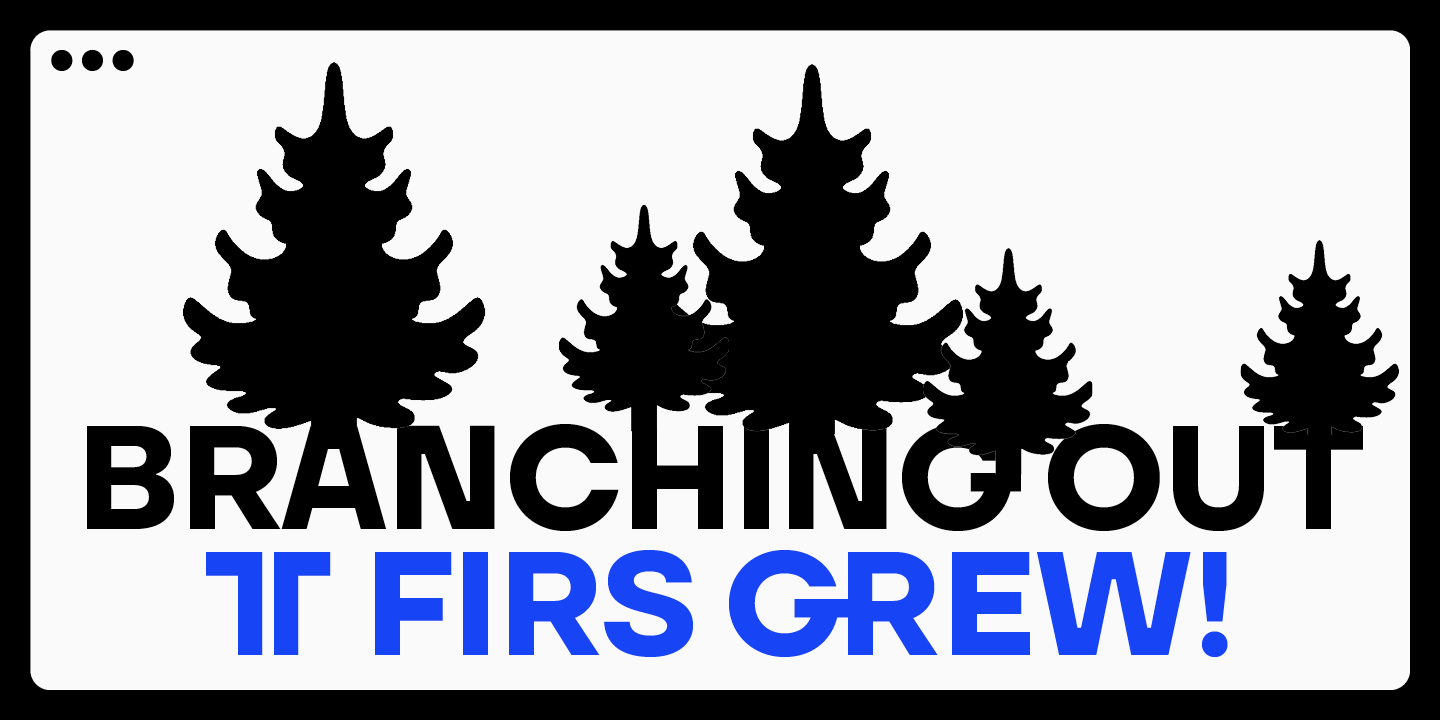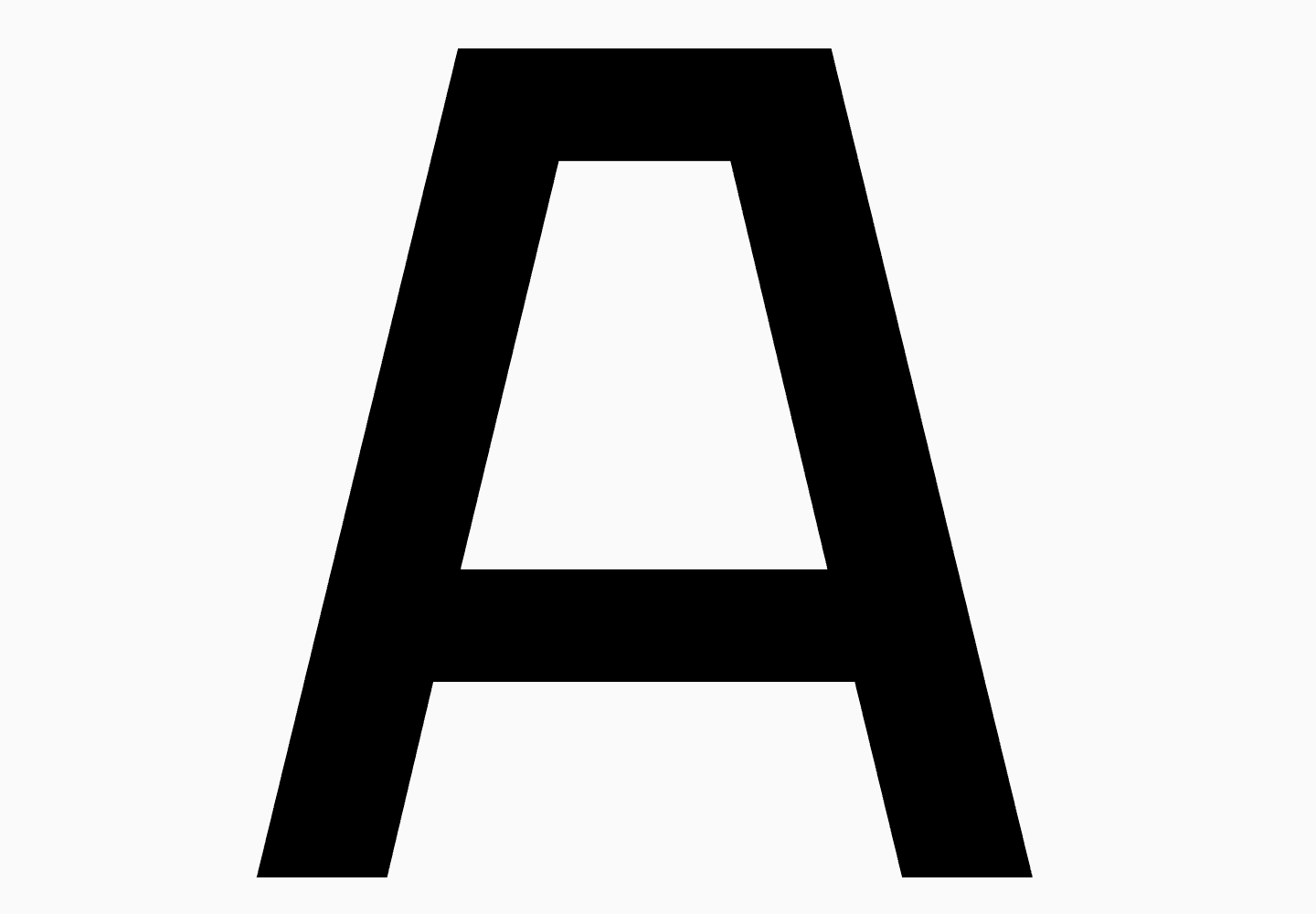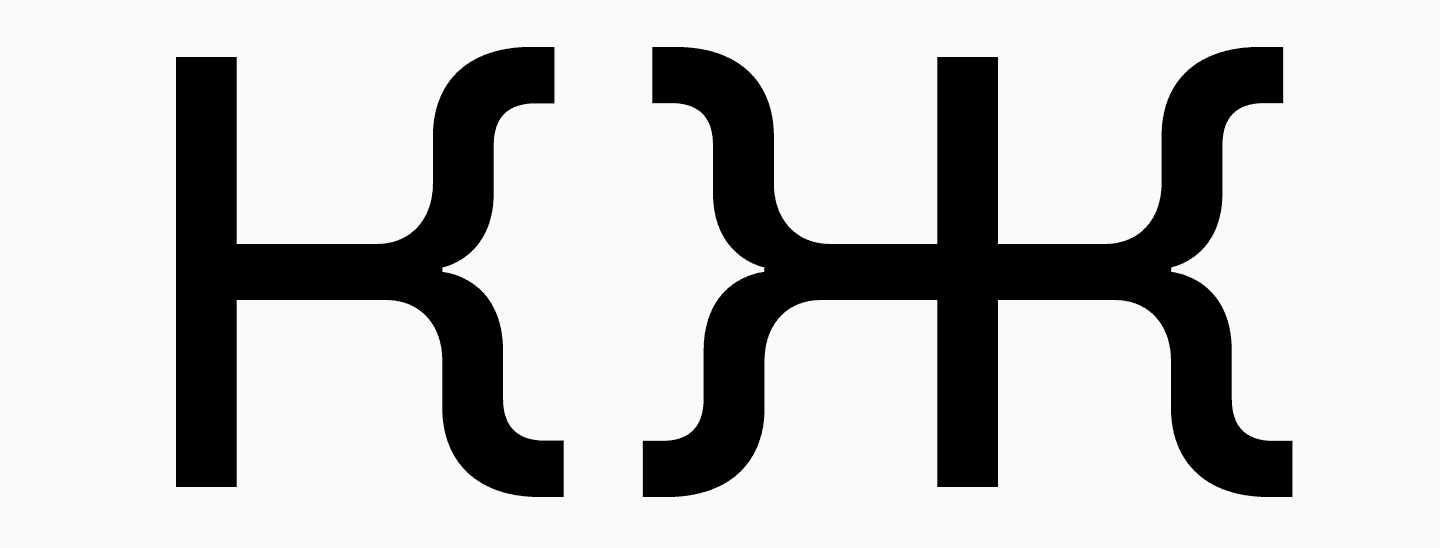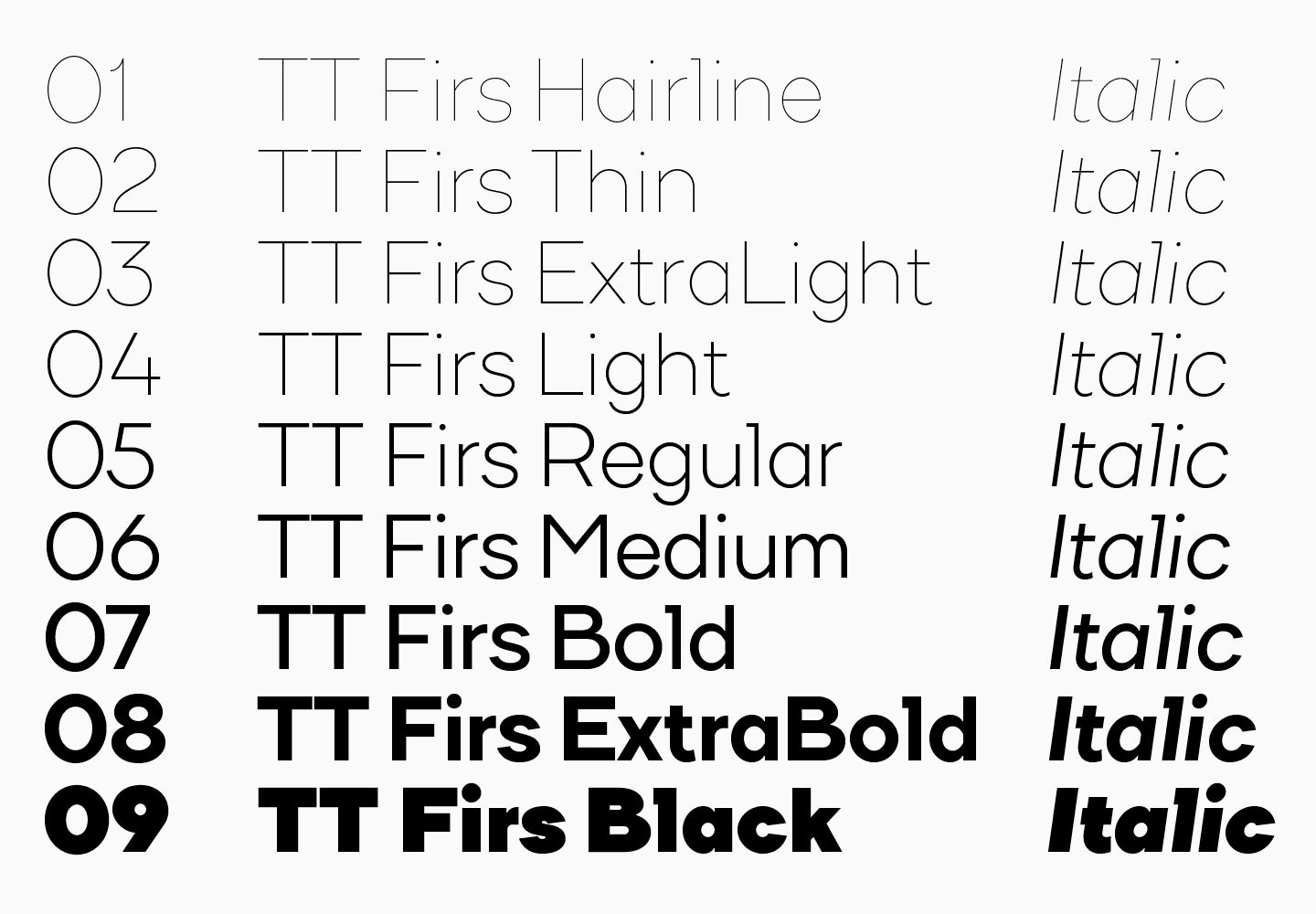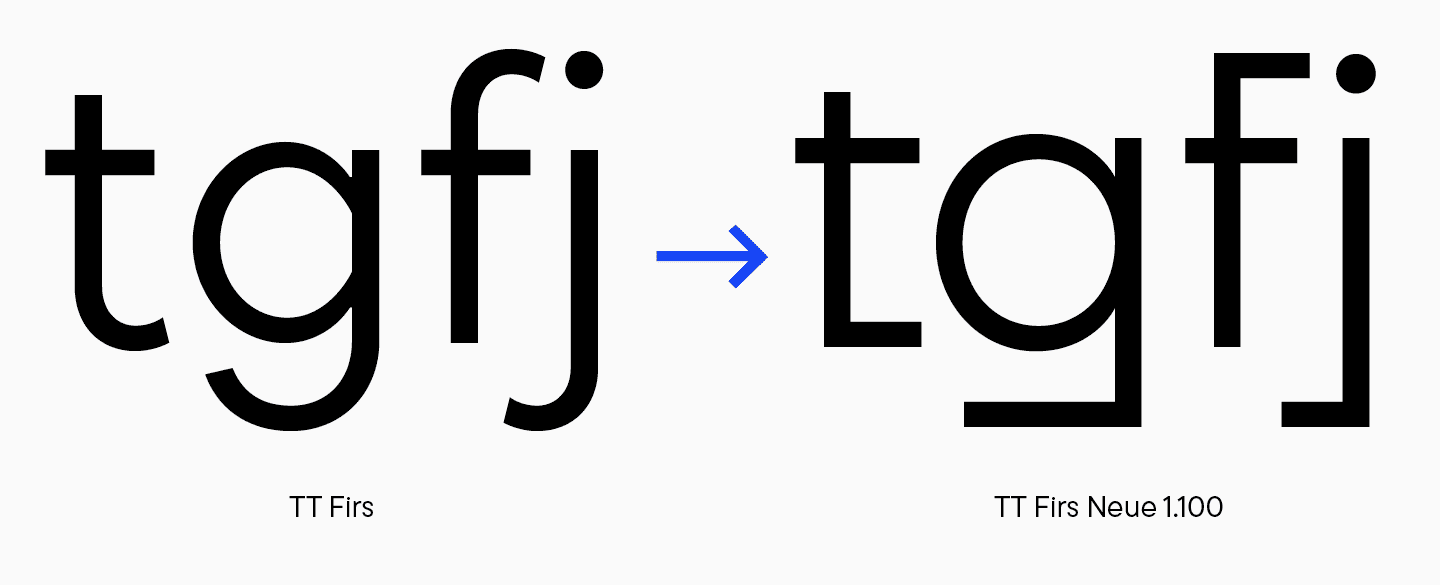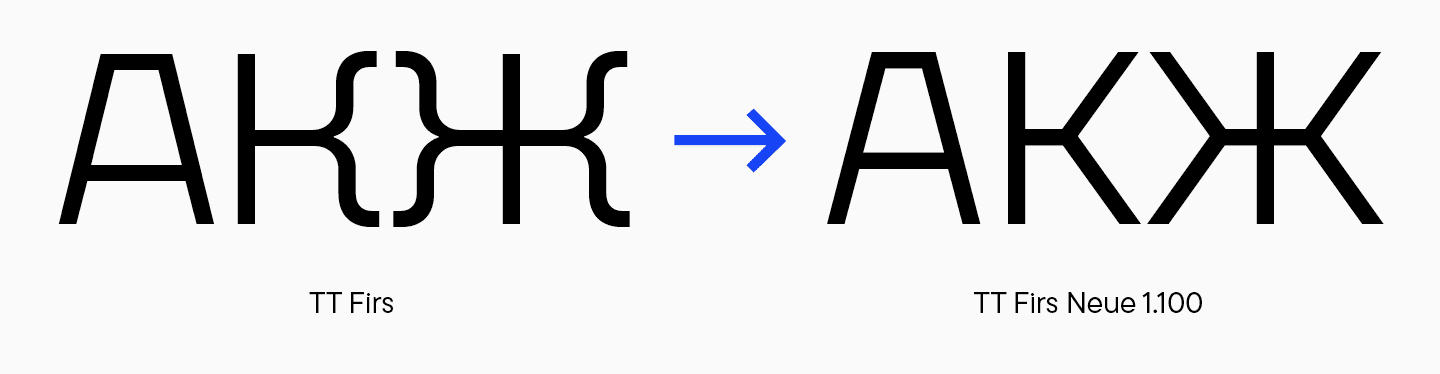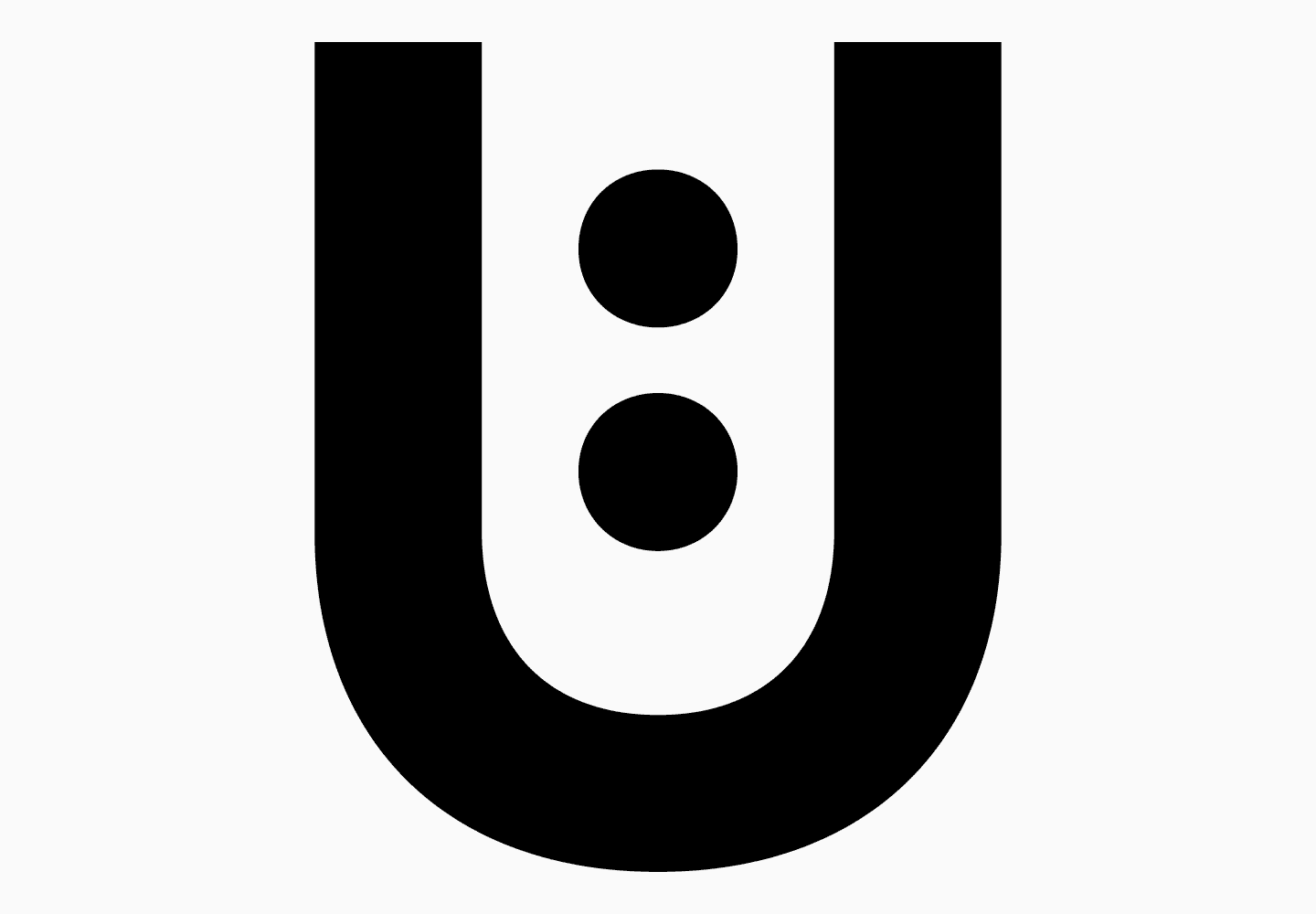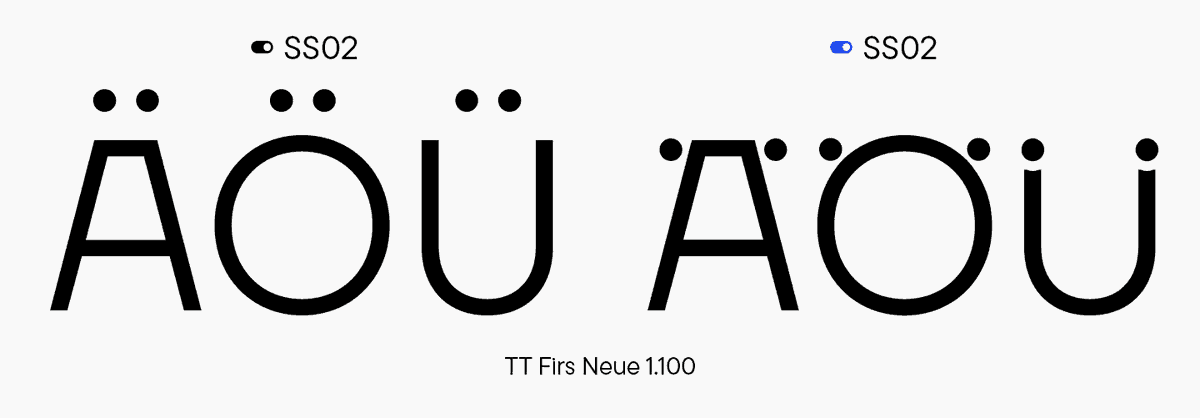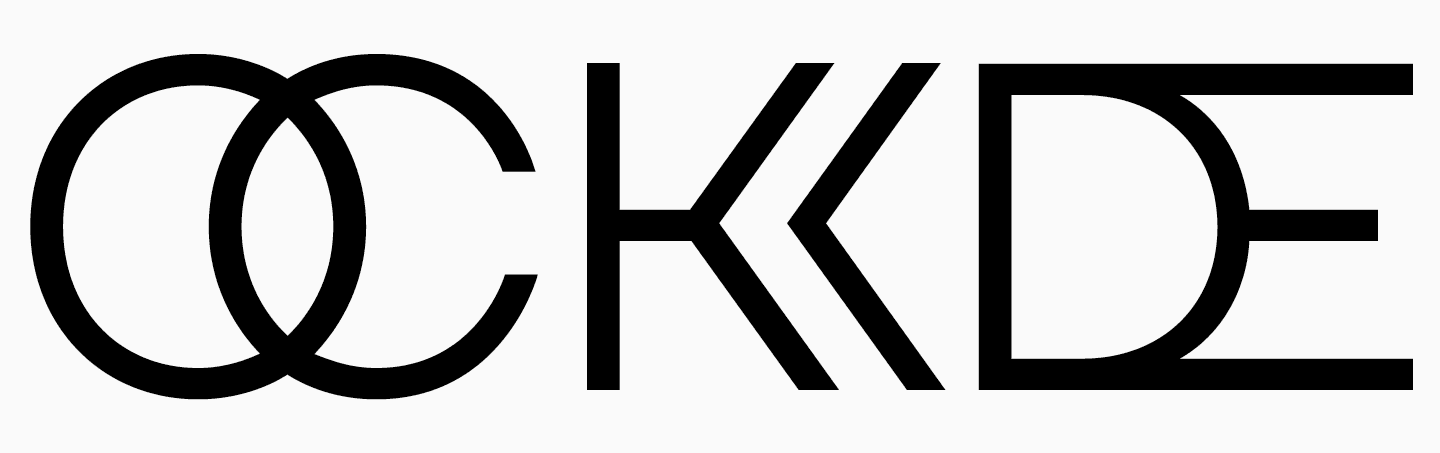
In 2023, we breathed new life into the beloved Scandinavian sans serif TT Firs Neue by dramatically refining and renewing the typeface to adjust to cutting-edge requirements. Quickly after, we launched the textual content font pair for this typeface — an elegant TT Firs Textual content.
This text is devoted to the way it all started, why we determined to replace TT Firs Neue, what we added and modified, and the way TT Firs Textual content was born.
How TT Firs planted roots
The story of TT Firs started again in 2014 when TypeType was simply beginning out. The concept for the font’s design was born in Helsinki: Ivan Gladkih, the studio’s co-founder, went on a household journey there for a weekend.
«We went to the Fazer café, which was initially only a café named after its founder. Later, they started producing the well-known chocolate below this model. This dessert store is situated in the town heart of Helsinki and was based in 1891. It appears to be like like a easy canteen, however they serve wonderful signature desserts, so the place is at all times crowded. The café blends seamlessly with the encompassing space. There, I noticed an outdated signal with the Fazer title. Once I regarded nearer, I thought it was one thing very eye-catching, distinctive, and fascinating. And that is how the thought of designing a Scandinavian-themed font got here to my thoughts. I was impressed by the letter ’A’ on the signal with a huge horizontal stroke at the highest and commenced sketching the long run Firs.»
Ivan Gladkih, CTO, co-founder of TypeType
«At that point, we drew every thing intuitively, with none analysis. We made a temper board with Scandinavian design references and Scandinavian-themed fonts. Whereas designing this sans serif, my major concern was what individuals would wish to use it for and the way it would mix with designs. Implementing the Cyrillic alphabet was a explicit problem as a result of there are not any comparable fonts that includes Cyrillic glyphs. If we used the horizontal factor of the letter ’A’ in the Cyrillic letters ’Д’ and ’Л,’ which is a reference to the Nineteen Sixties of the Soviet interval, it could be logical to design different pseudo-soviet letters—and that’s how branchy ’К’ and ’Ж’ had been designed. Total, I relied totally on my private sense of issues.»
Ivan Gladkih, CTO, co-founder of TypeType
So, in 2015, the primary model of our Scandinavian sans serif got here to life. The typeface consisted of 9 roman and 9 italic font kinds, and the character set was minimal. The daring font model was reasonably stable however had nuances associated to the distribution of distinction and weights. We will let you know extra about that later. Nonetheless, the font turned out to be genuinely distinctive and positively infused with a Scandinavian ambiance.
«We had a custom at that point to title all fonts so that their names resulted in ‘s.’ Whereas I was desirous about how one can title a Scandinavian sans serif, I realized that certainly one of the distinctive options of Scandinavia is fir bushes. That is how the font adopted the title TT Firs, which caught on and nonetheless exists in the third font’s version.»
Ivan Gladkih, CTO, co-founder of TypeType
After the discharge of TT Firs, it lived a lifetime of its personal — we watched it from apart and noticed many examples of individuals utilizing it in their designs. Though it didn’t characteristic hinting or any OpenType options, it was distinctive, charming, and beloved by customers. That’s why we thought-about updating and enhancing the typeface.
How TT Firs «branched out» and grew to turn into TT Firs Neue
We really beloved TT Firs. Nonetheless, the extra fonts we launched, the higher we understood that this Scandinavian sans serif is not maintaining with the standard of our font library. So, in 2017, we determined that it was time to get began on its revamp.
First adjustments
At that point, we collaborated with Filipp Nurullin, a visitor typeface artwork director at TypeType. He was the one to do the primary revision of TT Firs and conduct the primary analysis.
Filipp tried to reimagine the font with inventive imaginative and prescient to make it extra fashionable and efficient for numerous initiatives. So, sharp angular cuts appeared in the font, for instance, in the letter «g,» which has a rounded half mixed with a sharp angle. There’s additionally a squared angle in the letter «f.» On one hand, this factor doesn’t appear logical. On the opposite, it presents a distinctive technique to spotlight lowercase characters that beforehand regarded extra impartial.
Additionally, Filipp reworked the legs of «A» and arms of «Ok» and «Ж» to make them look more durable, extra intense and provides them a European really feel. Branchy letters from the earlier model remained to function alternates. This fashion, we received a fundamental set of glyphs utilized in TT Firs by default and represented this font and an alternate set (spoiler: we’ll hold following this logic with alternates whereas engaged on future iterations).
Throughout the work, it turned clear that certainly one of the distinctive options of Scandinavian typography is diacritical marks positioned inside letters. For example, a attribute letter «U,» the place the umlaut is typically positioned inside, like berries in a shot glass.
So, diacritical marks are both built-in into letters, pressed up towards them, or positioned on their aspect. We made this peculiarity certainly one of our font’s key options and emphasised its Scandinavian spirit by designing a set with such diacritics (a comparable however enhanced set remained in the newest model of TT Firs Neue).
This replace additionally contained quite a few show ligatures. They had been surprising, distinctive, and added expressiveness and visible mass to the font.
«I suppose it’s actually cool that simply by utilizing these ligatures, designers can boost the visible model of a letter, phrase, textual content, or emblem with out implementing any extra graphic parts. It might sound shocking, however I’ve by no means seen such ligatures in use. Though I would love to, as a result of they’re really superior and „survived“ till the present font model (solely in a modified kind — Ed. observe).»
Ivan Gladkih, CTO, co-founder of TypeType
That is how the reimagined model of TT Firs got here to be. We launched it in 2018 below the title TT Firs Neue (1.100). At that point, the typeface included greater than 900 glyphs (in distinction to the primary model, which had about 400 glyphs). TT Firs Neue, model 2.000, will characteristic greater than 1700 glyphs—however let’s tackle every thing in flip.
Apparently, TT Firs Neue’s notion has been altering a lot. The extra initiatives used it, the extra impartial it appeared as a result of it had turn into ubiquitous: we noticed it in YouTube movies, branding, logos, and extra.
«The font has turn into visually impartial, nonetheless odd it could seem. All its expressive and tremendous recognizable types, resembling triangular „Д“ and „Л,“ and „t,“ „f,“ „g,“ and „j“ with squared angles, turned strange as if they had been at all times presupposed to appear to be this. This got here as a shock to me. As the saying goes, font works in mysterious methods. At first, our typeface appeared one thing extraordinary, and after a whereas, you suppose it’s only a font, and there’s nothing particular about its look.»
Ivan Gladkih, CTO, co-founder of TypeType
A new starting: Designing TT Firs Neue 2.000
As time went on, the studio advanced and mastered new instruments. Our fonts grew along with us. After transitioning to Glyphs, we received our palms on variation axes. This device helps us create variable fonts as effectively as keep logic inside a typeface.
That’s why, in 2022, we thought up a new makeover for TT Firs Neue, which had been beloved by each us and our customers. The font was wonderful already, however we determined that we needed to make it even higher! We meticulously revised the tiniest particulars and polished them to perfection. As a outcome, we didn’t simply replace the font—we virtually rebuilt the typeface from scratch.
Half 1: In search of imperfections
To start with, our Lead Designer, Antonina Zhulkova, revised the present TT Firs Neue and steered potential enhancements. Let’s go via them collectively.
Notice that we will typically seek advice from the phrase «bizarre» (or its synonyms) all through the textual content. What do we imply when speaking concerning the weirdness of a font or particular person characters? We see it as a little flag: «One thing stands out from the general image.» First, we shortly «scan» the font, getting a sense of it. TT Firs Neue is harsh, Nordic, static, engaging, recognizable. It’s straightforward to bear in mind primarily due to the horizontal joints between diagonals. The letter «A» Ivan talked about earlier may function a emblem for this font. One other element forming the font’s model is squared terminals in some characters. These are the integral components of the typeface’s character. The remainder of the expressive parts are evaluated with a essential eye in phrases of their goal. We mark issues as «bizarre» or «surprising» and analyze whether or not this graphic contradicts the core idea of the font or emphasizes it. If one thing enhances the font’s character, enhancing and supporting it, we may hold it. If a element has no affect on the font’s character or goes towards it, this element doesn’t belong right here.
Visible compensators
It’s important to perceive that the primary model of TT Firs was designed in FontLab 5, and the earlier replace was created in Glyphs. So, we needed to work with the file that was moved from FontLab 5 to Glyphs in a barely incorrect format.
This posed some challenges. For instance, the earlier font model contained ink traps in the daring kinds. This added an further aptitude to the font and addressed the difficulty of glyphs clumping in small level sizes. After shifting to Glyphs, lighter font kinds additionally acquired ink traps, however they solely served as workarounds. Throughout the revision, we got here to two conclusions. On the one hand, these compensations had a practical goal: to make variability work. On the opposite hand, they made daring characters look extra expressive, and the general graphics appeared inconsistent.
For example, the letter «N» in the Skinny font model often appears to be like calm, and in the Black font model, the compensators seem to remodel its character barely. Nonetheless, if in «N,» they don’t seem to be excessively noticeable and have a technical perform of not letting daring stems clamp with diagonals, in the letter «M,» they turn into thinner and rather more aggressive. And in the ampersand, they modify their shapes once more.
Thus, ink traps weren’t featured in all font kinds and regarded completely different even inside one font model, creating visible noise.
Completely different overhangs in rounded characters
The logic of rounded characters was flawed. For instance, the uppercase «O» in the Skinny font model regarded round however barely stretched vertically. In the common font model, it reached most roundness and expanded horizontally in Daring and Black. Lowercase characters made this impact much more outstanding.
Completely different terminal character
«Apparently, this was certainly one of the options that helped me distinguish the outdated TT Firs Neue model from the brand new one if I noticed the font out on the road someplace. These outdated terminals entice consideration; I referred to as them ’scorpion’s tails.’»
Marina Khodak, TypeType Lead Designer
For example, the letter «a» had a clean and symmetrical terminal, the place the left bracket half regarded virtually the identical as the proper one. Sure, it was a little extra sloped on the left, however total it regarded comparable. The letter «з» has a crammed oval on the proper, whereas the left terminal flattens out, and the angle sharpens dramatically—just like the scorpion’s tail earlier than a strike.
That is as noticeable in the uppercase «S» and «З» as in the rounded characters («C,» «G»). The higher high a part of the letters appears to lose its weight and roundness.
In normal, each choices have the proper to be, however we wanted to perceive which one was higher for our font: rounded, full terminals or sharp «tails.»
«On condition that the font appears to be like fairly robust and critical, it was logical to make terminals resemble those in the letter ’a’: symmetrical however with out the lack of weight.»
Marina Khodak, TypeType Lead Designer
One other drawback was that, in addition to the personalities, terminals had various widths. That is clearly seen in the letters «t,» «j,» «l,» and «f.» For example, the terminal of «j» is considerably wider than that of the letter «l,» and this appears to be like odd, particularly considering that the terminal’s form is fairly expressive and crowd pleasing.
Inconsistent selection of types
In older variations of our fonts, there may be a noticeable pattern to make the black font model extra uncommon. Now, we don’t do that anymore. First, letterforms needs to be constant in all font kinds to make variability work correctly (the variety of factors in font kinds have to be equal). Second, we contemplate such design selections a break in the font household’s logic. That’s why some types of the outdated TT Firs didn’t cross our new self-censorship.
For instance, the quantity 4 in the Black model had a sloped stem angle, permitting for extra unfavorable area inside. At that second, we most likely thought it was essentially the most optimum resolution. Nevertheless it wasn’t the very best. We wanted to discover one other one which wouldn’t make us break the glyph’s kind.
Interletter areas (aproshes)
Spacing required refinement.
Triangular characters
Inconsistent kind logic, various grasp widths, not sufficient slant in «A,» «Л,» and «Д.»
That is a essential nuance as a result of these junctions, horizontal bars, are a style-forming factor of the font. In TT Firs, they had been essentially the most strongly expressed in comparability to the opposite typefaces in our assortment.
For example, this junction is very noticeable in «A» and «V.» Notice that that it appears to be like the identical in these two letters and the letter «X.» Nonetheless, in «Y» and «W» it’s not featured, making them simply strange letters with none expressive parts. Thus, the logic of glyph design is damaged throughout the Black font model.
The identical challenge might be seen in the lowercase triangular characters (Cyrillic and Latin): «v,» «w,» «x,» «y,» «л,» «д,» «м,» and «и.»
Let’s now take a look at the entire household. Other than ink traps in the daring masters, there may be a lack of readability in junctions. The letter «M» in the Daring font model has a horizontal at the underside however not at the tops. In the Skinny font model, it’s additionally solely featured at the underside. Furthermore, the width of this element varies in completely different font kinds: in Skinny, it’s a lot wider than in Daring or Black.
The letter «N» doesn’t embody such parts at all. In addition to, ink traps are current in the daring grasp however not in the skinny one.
Take a take a look at the letter «W.» Like «M,» it ought to have featured a junction in the higher a part of the diagonal intersection and sharp angles in the underside half. Nonetheless, for «W» in the Skinny model, all of the intersections go via this junction and will not be included in the daring grasp, and ink traps will not be featured both.
It appears to be like just like the logic was flawed each inside particular person font kinds and between completely different font kinds.
«For the replace, we may contemplate the next approaches: shift in direction of expressiveness or flip away from it. For instance, we may add ink traps in all places. Throughout the group, we determined that, in that case, this graphic selection wouldn’t refresh the undertaking in any means, and opting out of it would make the font look extra fashionable. In addition to, there may be no level in including ink traps to mild font kinds as they don’t seem to be clearly seen there. One other challenge was whether or not to add junctions in all places or do away with all of them. If we had not built-in them, we would have had a extra impartial design. Such a resolution didn’t go well with TT Firs Neue however was carried out into TT Firs Textual content (we will inform about it later — Ed. observe)»
Marina Khodak, TypeType Lead Designer
So, we determined to hold horizontal parts. Nonetheless, there was a query of how they need to look: like in the «M» or in the «W.» These letters have essentially the most noticeable distinction between the development of junctions.
In her interview, Antonina steered making a extra standardized model: add junctions like in the letter «W» in all places and make them medium in width. She made a sketch that impressed the additional improvement of the font household.
Spherical characters
«Once I started engaged on the font, I fully redesigned spherical characters. the outdated model of the font, at all of the font kinds featured there, we can see that the proportions of rectangular characters fluctuate. For example, in the Skinny font model, the letter „H“ is very slim, and the correlation between „H“ and „O“ in this font model is not the identical as in Common, Daring, and Black. Primarily, the letter „H“ in Skinny was not simply extraordinarily slim; it additionally appeared a lot narrower than the letter „O.“ The „O“ regarded extra spherical, and the „H“ was very elongated vertically. At the identical time, the Daring font model didn’t characteristic this distinction. So, it regarded as if „H“ expanded with rising weight, altering its proportions.»
Marina Khodak, TypeType Lead Designer
The identical factor occurred to lowercase characters. By evaluating the letter «o» and the single-storey «a,» we can see that these letters have very comparable proportions in the Skinny font model: the «a» is a little narrower than the «o» however nonetheless appears to be like extra rounded. Nonetheless, in the Common font model, the «a» turns into extra vertical, whereas the «o» expands horizontally. With rising weight, this tendency, very similar to in uppercase letters, turns into extra pronounced. The letter «a» and comparable characters turn into narrower, buying a vertically oriented kind, and the letter «o,» in distinction, turns into wider.
In addition to, in the Skinny font model, the left sides of the «o» and the single-storey «a» are just like one another, however as the font weight will increase, the similarity disappears. Additionally, the junctions of the spherical characters appear lighter in the Daring font model.
Marina finally modified the letter proportions to clear up this drawback. We’ll present and let you know extra concerning the final result under.
Characters with bowls
The following facet on the evaluate record was the damaged logic of the correlation and distribution of the oval types between font kinds. Furthermore, the bowl heights appear too giant, particularly in the Skinny model. The letter «Я» is smaller and narrower than the letters «Р,» «В,» and «Ь.»
«For instance, by evaluating the letter „P“ in the Skinny and Common masters, we can see the distinction in correlation. In Common, the waist is increased than in Skinny, which makes the letter resemble a small flag on a stick. As if the oval is not an important a part of the letter however merely one other extra factor.»
Marina Khodak, TypeType Lead Designer
S, З, J
The character of these letters considerably stands out from the opposite glyphs in the set, which is particularly noticeable in lowercase letters.
The higher left a part of the bowl in «З» is a little quick. «S» options extreme fluidity, «J» has an overly vibrant terminal—the one letter in the font the place the terminal reduce is angled. In all different characters, terminals are reduce horizontally. TT Firs is a static, harsh sans serif, and if such fonts have a dynamic look, this needs to be justified.
Ligatures
There have been additionally issues concerning the set of ligatures. For example, the lowercase set consists of «fi» and doesn’t embody «ffi.» Sure uppercase ligatures are lacking their reverse variations — there may be «AV» however no «VA,» and «TA» however no «AT.» That is not a mistake however raises questions on what’s actually taking place there.
The logic between masters in the ligatures is additionally flawed. In the «AR» letter mixture, «A» is narrower than «R» in the Skinny font model, and in the Black font model, this proportion shifts, and «A» turns into considerably wider, taking over virtually as a lot area as «R.» The identical goes for «RJ.»
«LA» contains a bizarre connection, which is inconsistent in completely different masters.
One other odd design selection is the widespread horizontal stroke in «EA.» It is fascinating on its personal however isn’t fully thought via, so in the Black font model, every thing clumps collectively, and the ligature appears to be like extra just like the Cyrillic «БА» as a result of the underside a part of «E» types an oval form.
«TE» additionally appears to be like unusual and resembles a hair comb. When a letter turns into harking back to one thing else, it turns into an icon or an illustration. It appears the graphics might have been overemphasized throughout its design.
Lastly, right here is the «АТ» ligature, which is sadly fully illegible due to its overcomplicated kind.
The Common font model was too daring
After the primary TT Firs replace, the Common font model regarded too daring due to the font’s transition from FontLab 5 into Glyphs. We make the conclusion concerning the extreme weight in response to the same distribution of weights in font kinds of quite a few typefaces. Customers have expectations about how (in concept) a Common or Daring font model ought to look, and font designers have the information of values.
Antonina Zhulkova supplied the next answer: to take all of the values from the outdated TT Firs Neue and make the Common font model a little lighter. At that second, this answer was optimistic as a result of we thought it could be a fast replace the place we would solely be making minor changes to the font. Nonetheless, after we selected the entire font makeover, Marina Khodak got here up with one other answer, which we will let you know about later.
Illogical stylistic set
Earlier, we talked about that, aside from quite a few peculiar ligatures, the primary TT Firs had a set with built-in diacritics. The issue was that the diacritical marks had been made just for a number of characters, and the design was inconsistent. In some glyphs, the diacritic was positioned intently to the letter; in others, it both had a squished kind or was built-in into the character. Some characters didn’t have diacritical marks at all. We wanted to set up a uniform logic for every thing.
Diacritics additionally diverse between font kinds. For instance, in the recognizable «O» with «ears,» a dieresis was carried out solely in the Black font model. In Skinny, the dots are positioned subsequent to the character, and in Common, they seem caught to the character. The identical occurs to the letter «A» and another characters. This appears to be like odd and requires looking for a unified logic.
Addition to the character set
The language set of the prolonged Cyrillic alphabet for all letter instances (lowercase, uppercase, small capitals) didn’t correspond to our present requirements.
There have been no circled numerals, fractions, or small-cap numbers.
Different evaluate factors
Some characters’ graphics wanted revision. For example, the logic of stylistic units was damaged; there was a set for the Cyrillic alphabet with fancy legs of «К» and «Ж,» however their relative letter «Я» didn’t have such a leg. The center stroke of «E» was too quick. The oval of the double-storey «g» was too overpowering and regarded unbalanced. Antonina steered making a extra seen distinction between ovals and take a look at shifting the bar between them. The form of the department in «б» made the letter too just like the quantity 6.
The junctions at intersections; for instance, in the letter «n.» They served for optical compensation. In the Skinny font model, the width of this factor was just one level. It needs to be both extra outstanding or non-existent.
The higher a part of the stem in “n,” to the proper of the arch, had the identical weight as the remainder. Antonina steered making this “thorn” narrower. It’s a widespread apply to make it slightly thinner than the principle stem. This fashion, it doesn’t look too sturdy and enormous.
Inconsistent diacritics. The Cyrillic and Latin breve had been similar in some kinds and completely different in others. The flame was too calligraphic and didn’t match the font’s character.
Additionally, the up to date graphics required the very best brand-new spacing and hinting.
Half 2: Font refinements
At this stage, Marina Khodak turned the undertaking’s Lead Designer. Constructing upon Antonina’s analysis and discovering her personal options, Marina initiated a full TT Firs Neue overhaul. For the two.000 model, the font was virtually rebuilt from scratch.
Let’s cowl essentially the most fascinating adjustments.
Balanced Common font model
Common is the principle font model of the typeface. The duty was to make it secure and simple for customers to change the outdated TT Firs Common they initially used with TT Firs Neue with out making every thing look bolder. That’s why it was very important to keep similarities between the fundamental font kinds in nearly all of the typefaces.
«When it turned clear that we had been doing a extra in-depth rework on the font, we re-calculated all font kinds. As a outcome, the load of the Common model in TT Firs Neue 2.000 was 70 factors — it was the way it ought to be. In addition to, we added a Regular font model to the font with a stem weight of 90 factors. We typically add this font model to sans serifs due to excessive demand. In the outdated TT Firs Neue, the Common model weighed 90 factors, and the brand new one — 70. We stored the worth of 90 factors for the customers who favored this particular weight in the earlier model of the font.»
Marina Khodak, TypeType Lead Designer
Designed common logic for the set with compressed diacritics
To align the diacritical marks that caught to letters to the general logic, Marina analyzed the frequency of characters in Scandinavian languages.
«Our font featured a set with these compressed diacritics, and I wished to perceive why these marks had been added and utilized to just some particular characters. I had a model that they had been solely added to the letters featured in Scandinavian languages: Swedish, Norwegian, Icelandic, and Danish. The Finnish language doesn’t belong to Scandinavian group, however it is additionally referred to as that as a consequence of its geographic affiliation. I additionally thought-about English as essentially the most broadly spoken language, and Cyrillic-based languages as these we are native to. My concept didn’t maintain up. It turned out that the set doesn’t embody all of essentially the most incessantly used letters of these languages. We merely crafted compressed diacritics for all uppercase letters. This design selection turned the font’s distinctive trait, so now virtually any textual content that options diacritical marks might be stylized.»
Marina Khodak, TypeType Lead Designer
Other than the ss13 set with tightly positioned diacritics, we added the ss14 set, the place diacritical marks are built-in into the letters.
«TT Firs Neue 2.000 has a rigorously thought-out logic for its stylistic units. Nonetheless, many designers don’t use them as a result of they both don’t know they exist or merely discover this device inconvenient. So, we at all times suggest exploring the specimen and going via the font’s performance earlier than putting in it. Inside it lies a wealth of options that, when utilized, will reveal the typeface from a new perspective and add recent dimensions to its look.»
Ivan Gladkih, CTO, co-founder of TypeType
If you wish to be taught extra about discovering and utilizing stylistic units and different options, try our article.
Refined ligatures
The outdated model had incomplete units of ligatures. Marina’s place to begin was that our font belongs to Scandinavian sans serifs. That’s why she selected this route for the analysis.
«I thought-about essentially the most incessantly used letter combos from Scandinavian languages. We may simply design ligatures out of them, however they didn’t at all times look harmonious when mixed. So, we selected two logical approaches: the primary was frequency, and the second was aesthetically pleasing and fascinating letter combos. In line with this evaluation and logic, we created pairs that had been included in the font.»
Marina Khodak, TypeType Lead Designer
Listed here are some fascinating examples of the ligatures we made:
- Unconventional «DE.»
- In «Eл and «Fл design continuity with a widespread horizontal stroke of the outdated font stays constant.
- A type of the letter «G,» generally present in Scandinavian typography, made a sturdy look in the earlier font model. We added it to ligatures, rhyming the horizontal accent with «Eл and «FÐ.»
- Ligatures with «doubled» letters additionally got here from the Finnish language.
- «WE» appears to be like fairly charming.
Uppercase letters in the outdated font had many particular ligatures—they underwent vital adjustments, however the logic remained the identical. TT Firs Neue, model 2.000, presents two sorts of ligatures: easy and those from the ss15 set — letter inside a letter.
We rigorously reviewed all ligatures and diacritical marks to make sure they give the impression of being excellent in textual content.
Amplified Cyrillic-based language help
The up to date font consists of expanded language help, particularly for Cyrillic-based languages.
«A couple of years in the past, we realized that the world of Cyrillic-based alphabets is very broad. That’s why, in 2022, we began incorporating prolonged Cyrillic character units — not just for the principle Cyrillic-based languages but additionally for the languages of smaller ethnic teams utilized by greater than 1 million audio system, resembling Tatar, Kazakh, Kyrgyz, and extra. And TT Firs Neue isn’t an exception to this new strategy.»
Ivan Gladkih, CTO, co-founder of TypeType
Added extra charming italics
TT Firs Neue turned the primary sans serif for which we put further effort into the detailed improvement of italic font kinds. Normally, essentially the most fundamental Slant with artifact compensation is designed as a pair for sans serifs. The font’s proportions keep the identical. Nonetheless, in this case, we selected one other strategy.
«We put a lot of time, effort, and coronary heart into refining the up to date typeface. We wished to do extra — one thing actually particular.»
Marina Khodak, TypeType Lead Designer
So, whereas engaged on the sketches of italics, we determined to make them extra dynamic by rising the slant angle from 10° to 12° and modifying the proportions of the spherical characters. With out this essential change, giant, rounded types didn’t let the attention «glide» on the slanted line. Now, the extra dynamic design of the italic kinds higher fulfills its fundamental goal of highlighting key concepts in the textual content when paired with a static, upright font. In addition to, this italic model turned out to be simply stunning.
Different transformations
After the replace, the typesetting has turn into extra steady, robust, stable, and uniform. We redesigned junctions, widths, oval ratios, distinction, spacing, and proportions, fixing all the issues we lined in the earlier part.
For example:
- We fully redrew spherical characters and balanced their proportions in all masters, leading to extra uniform shapes.
- Junctions in the triangular characters turned visually constant.
- We eliminated the sharp terminals, the so-called «scorpion’s tails.»
- The terminals of the letters «t,» «f,» «j,» «g,» and comparable have been smoothed out, turning into extra uniform in weight and size. That is particularly noticeable if you strive evaluating two «g» variations.
- The ss7 stylistic set with rounded terminals was added. This set was later included into the principle character set of TT Firs Textual content, as effectively as ss9, the place the letter «G» didn’t have this engaging horizontal factor.
- Extreme distinction in the letter «e» was eliminated in the daring font model.
- «C» and «O» acquired extra balanced proportions between masters.
- The department in «б» was redesigned.
- We balanced out diacritical marks in weight and kind, clearly seen in the Cyrillic breve.
- The letter «Э,» which used to characteristic bizarre proportions and excessive distinction, now has every thing in order.
- The tail of the letter «Ц» and the terminals of «Ф» turned extra assured and clear.
- We modified the type of the quantity 5, eliminating its “weirdness.” The extra traditional model of the quantity labored higher for this design.
- Ampersand’s form was modified as effectively and have become extra expressive.
«It’s humorous that the form turned out similar to the one from the primary TT Firs model, although I didn’t have it as a reference. Clearly, it is guided by the font’s model and naturally belongs right here.»
Marina Khodak, TypeType Lead Designer
- The lowercase ampersand model remained however with out the horizontal factor, making the general kind look extra balanced. Additionally, the problems with interpolation and utilizing the variable font have been resolved.
- In the first character set of TT Firs Neue, the letters «Л» and «Д» have a trapezoidal form, supporting the look of the letter «A.» We designed major textual content types for the alternate set. Their character was softer and extra naïve than that of the complete font. In TT Firs Neue 2.000, we stored these alternate glyphs to amplify the typeface’s performance and redesigned them in the mandatory model. Later, these characters will likely be those to kind the first set of TT Firs Textual content, which we will cowl in extra element under.
The end result of the TT Firs Neue 2.000 design
As a results of all our arduous work and dedication, we received a completely balanced Scandinavian sans serif with expressive graphic parts and excessive versatility in use.
TT Firs Neue 2.000 consists of:
- 23 font kinds: 11 roman, 11 italic, and one variable font with two variation axes: weight and slant;
- 1719 characters in every font model;
- 40 OpenType options;
- 235+ languages help.
«Surprisingly, the second version of TT Firs is significantly well-liked in European branding. It is well-loved by numerous museums, architectural businesses, and cafés — every thing that falls into the class of Scandinavian vibe. Which means our imaginative and prescient got here to life as anticipated.»
Ivan Gladkih, CTO, co-founder of TypeType
From a lone fir to an complete forest: Designing a textual content font pair
As we used TT Firs Neue, we seen that it was fairly expressive and began desirous about designing a font pair for it — TT Firs Textual content.
Normally, font pairs are product of fonts from completely different teams, like serif and sans serif, that distinction with one another. We selected a barely completely different path by preserving the TT Firs Neue proportions and designing a textual content pair for it. Mainly, we did this to hold the font trying almost the identical whereas making certain that each one the characters are suited to textual content setting.
We outlined the duty as follows: to design a easy textual content font primarily based on TT Firs Neue 2.000, take away expressiveness and additional particulars, and reduce the character set to the necessities.
We primarily based our work on analysis carried out earlier for the TT Neoris font and revised sure glyph types to replicate higher-frequency ones—these extra generally utilized by designers.
Listed here are a few of the small print we altered:
- Junctions in the triangular characters had been eliminated, making the types much less expressive;
- Some types received a extra traditional look (for instance, «G» or «Q»);
- Squared terminals had been changed by rounded ones in «f,» «g,» «j,» «l,» and «t»;
- The proportions of characters with junctions had been visually compensated;
- Nearly all ligatures had been eliminated, and those that remained serve for technical functions reasonably than aesthetic;
- Italic font kinds underwent the identical transformations.
«As a outcome, we received a sans serif with extra conventional textual content types of characters. The font turned out to be reasonably impartial however nonetheless recognizable. It has a explicit model and vibe of TT First Neue.»
Toma Streltsova, Lead Font Designer
The end result of the TT Firs Textual content design
TT Firs Textual content is an elegant geometric sans serif with a Nordic character that blends uniqueness and neutrality.
TT Firs Textual content consists of:
- 23 fonts kinds: 11 roman, 11 italic, and one variable font with weight and slant variation axes;
- 898 characters in every font model;
- 31 OpenType options;
- 235+ languages help.
«We achieved a sturdy sans serif with a refined Scandinavian aftertaste, which completely matches TT Firs Neue 2.000. It’s clear to us that TT Firs Textual content is a „workhorse“ for a broad number of duties. We can see this in motion as the typeface has already turn into well-liked with our customers.»
Ivan Gladkih, CTO, co-founder of TypeType